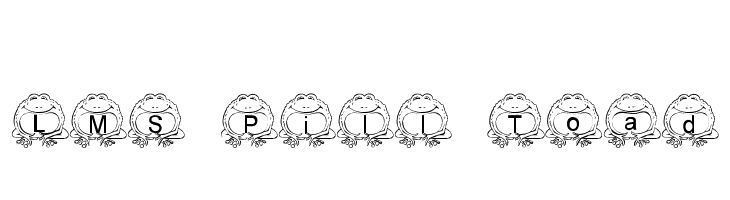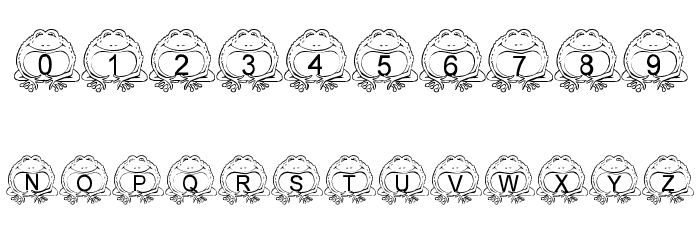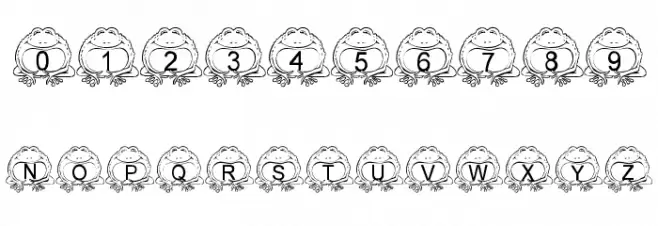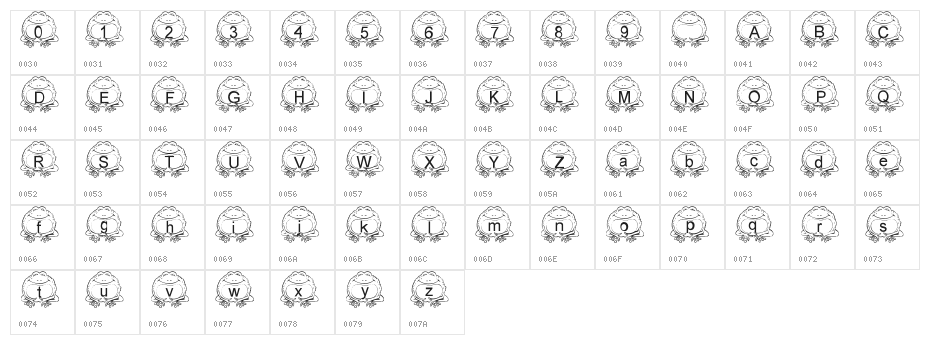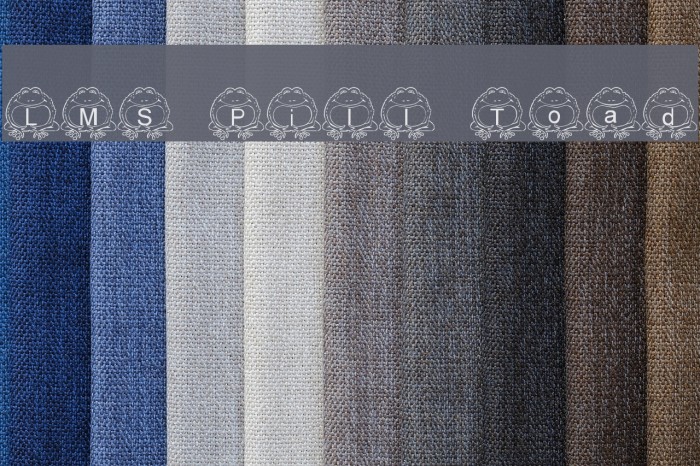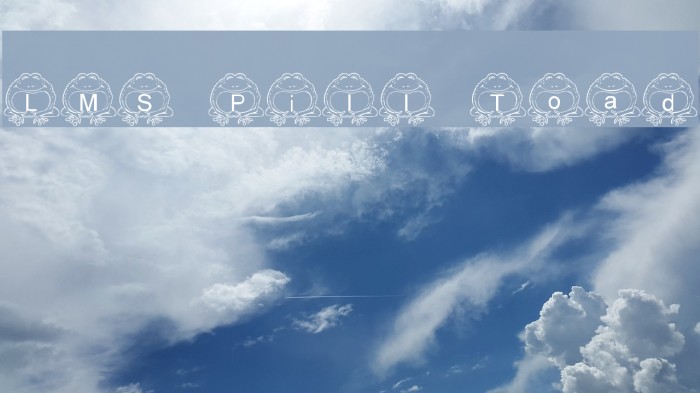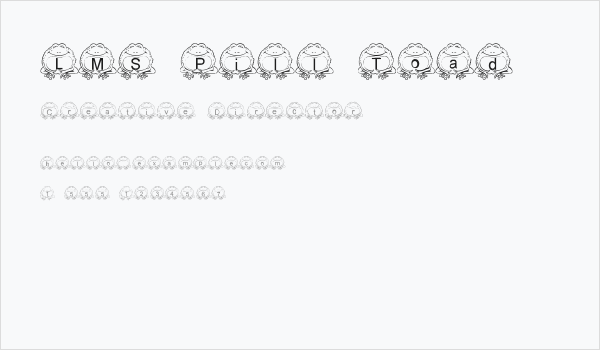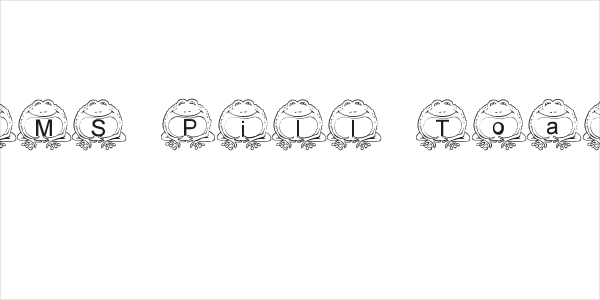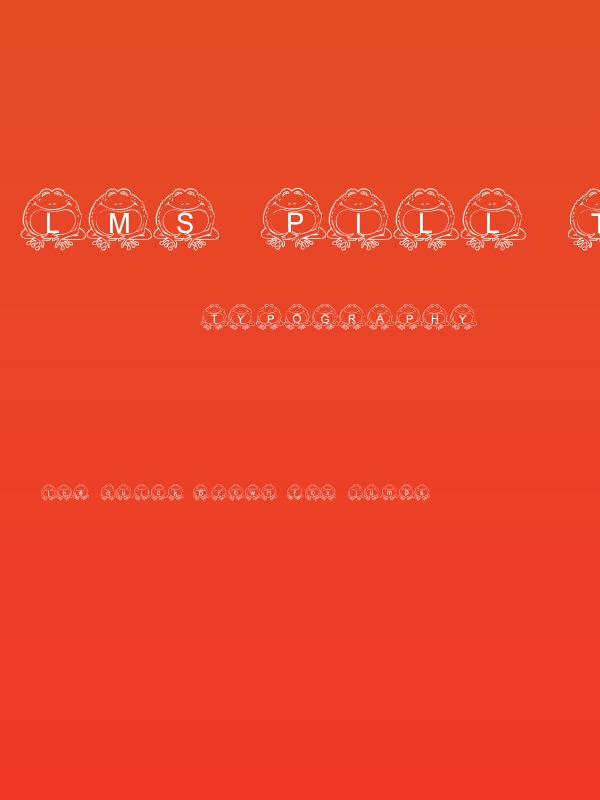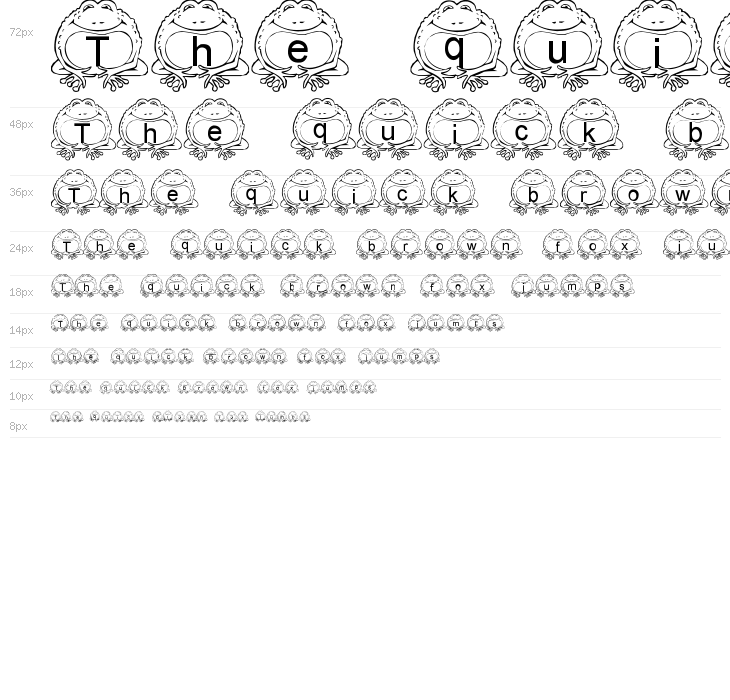
LMS Pill Toad Font
LMS Pill Toad Description
This whimsical and playful font features each character encased within a cartoonish toad illustration, creating a unique and eye-catching design. The letters are bold and clear, ensuring readability despite the decorative nature of the font. The toads are consistently drawn, providing a uniform look across all characters. This font is ideal for projects that require a fun and lighthearted touch, such as children's books, playful branding, or themed event invitations. The combination of bold lettering and intricate illustrations makes it stand out, while still maintaining legibility.
| Proposed Projects | Children's books, playful branding, themed event invitations. |